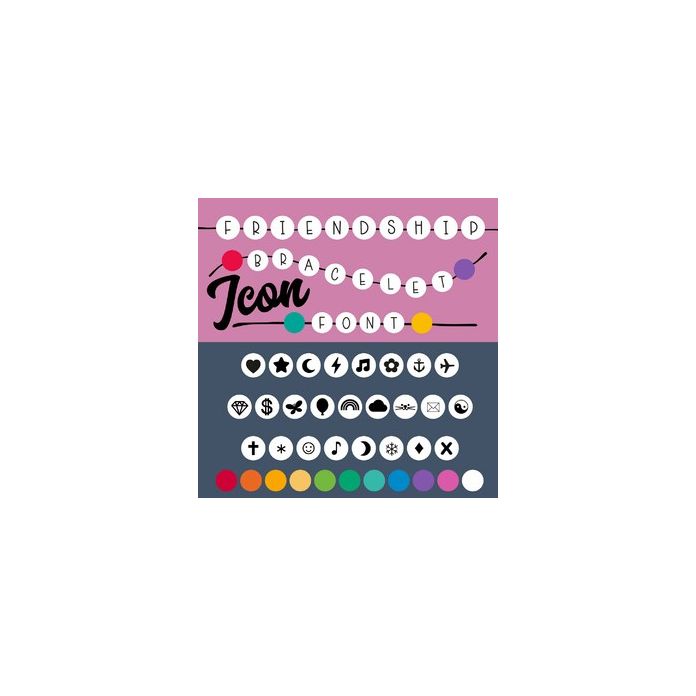
Friendship Bracelet Era Icon Font
Round White beads for Icons also includes color beads to mix up patterns and straight and wavy threads to create your own friendship bracelet words, titles and quotes.